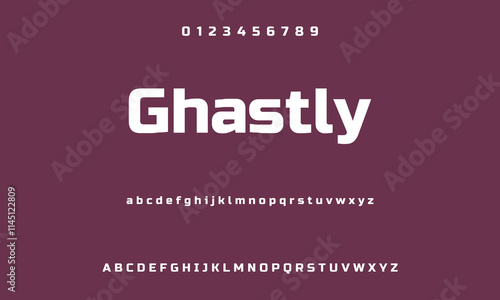
Sans serif font with vintage style typography. Alphabet vector font with Uppercase, lowercase, and number. Regular Bold font with uppercase dan lowercase variation.